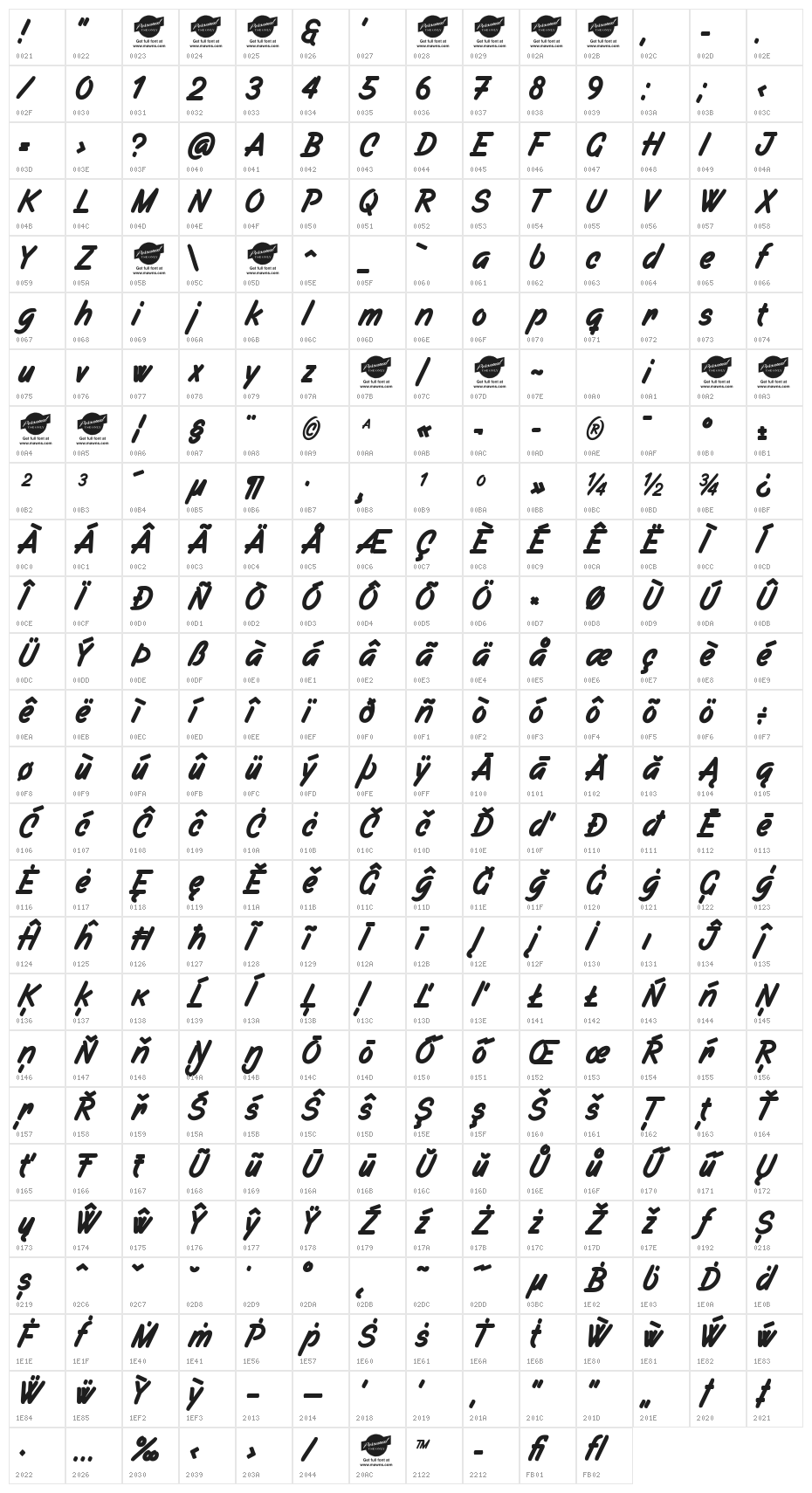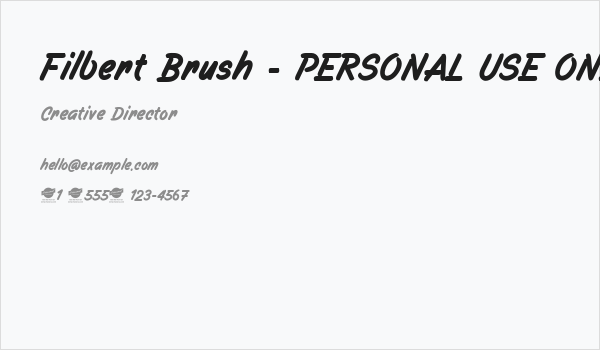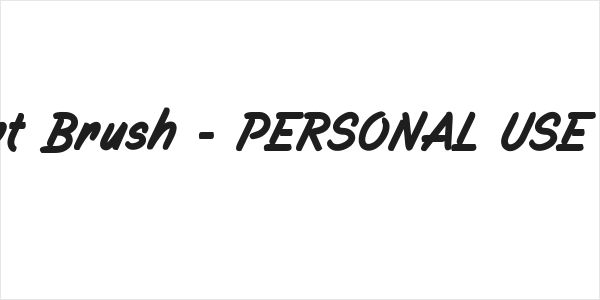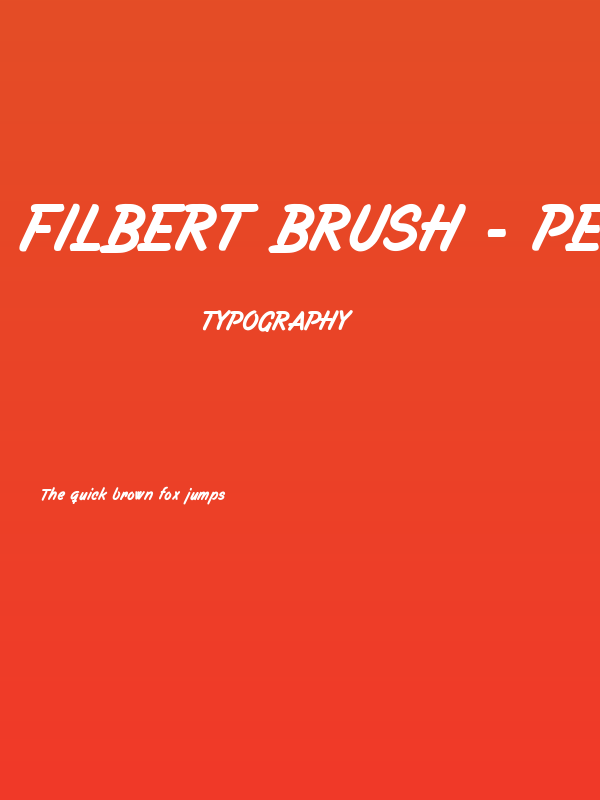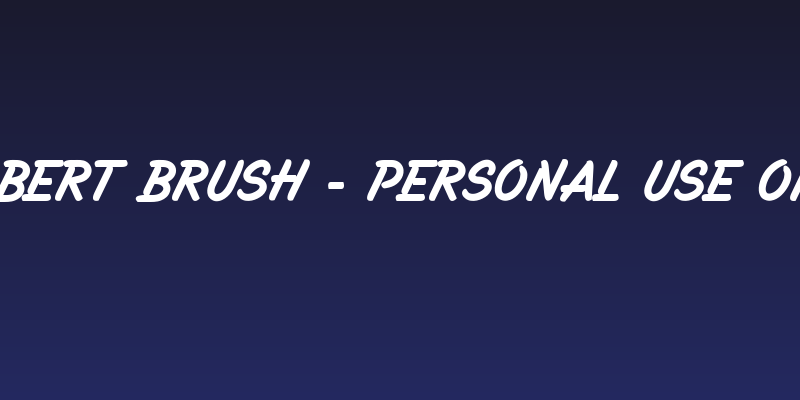
Filbert Brush - PERSONAL USE ONLY Font
Filbert Brush - PERSONAL USE ONLY Description
This font features a bold, brush-like style that exudes a sense of energy and movement. The characters are crafted with a smooth, flowing script that mimics the strokes of a paintbrush, giving it a dynamic and artistic appearance. The uppercase letters are slightly slanted, adding to the sense of motion, while the lowercase letters maintain a consistent style that complements the uppercase. The numerals and special characters are designed with the same brush-like quality, ensuring a cohesive look across all elements. This font is ideal for projects that require a personal and creative touch.
Use CaseLogos, Headlines, Artistic designs
Proposed ProjectsIdeal for creative projects such as posters, invitations, branding, and artistic designs.